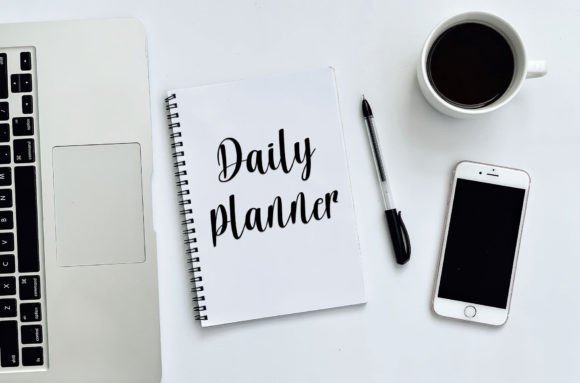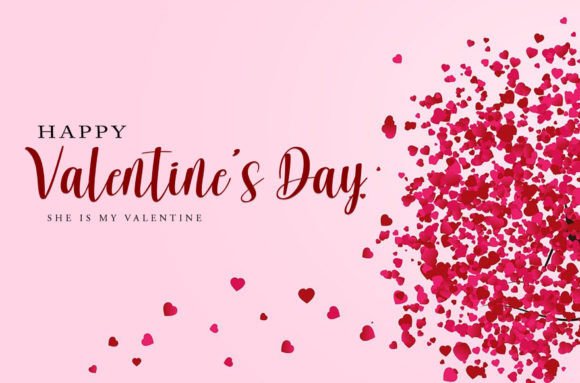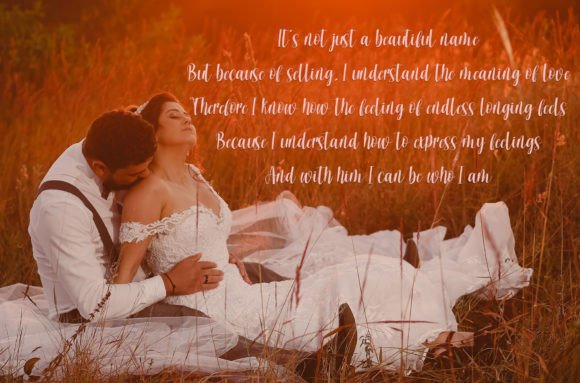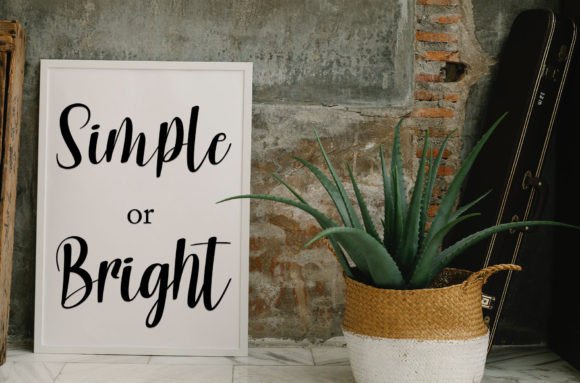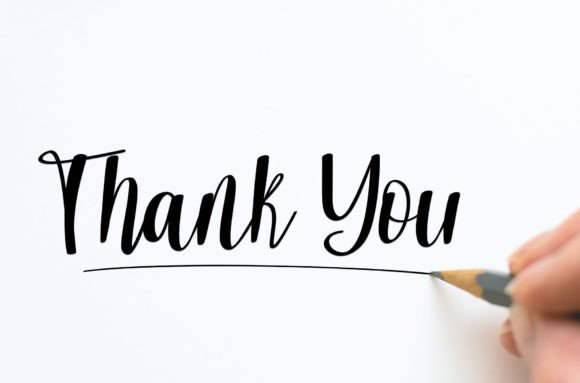
The Sweet Charm of Dominant Font: A Designer’s Delight
I’ll never forget the time I was working on a wedding invitation project, and my client asked for a font that was both elegant and playful. I scoured the internet, trying out font after font, but nothing seemed quite right. That was until I stumbled upon Dominant Font. This sweet and cursive handwritten font has been a game-changer for me, and I’m excited to share its charm with you! ✨
An Honest Review of Dominant Font
- ✨ The elegant, cursive script that adds a touch of romance to any design
- ✅ The font’s versatility – it looks great on a variety of design ideas, from branding to greeting cards
- 🌸 The joyful and whimsical feel it brings to projects, perfect for making them stand out
- 💕 The perfect balance of fancy and casual, making it suitable for a wide range of applications
While Dominant Font is an amazing addition to any design project, there are a few things to keep in mind: 🤔
- ⚠️ Some of the more intricate details may get lost at smaller font sizes
- ⚠️ It may not be the best choice for body text, as it’s more suited for headlines and titles
A Practical Guide to Using Dominant Font
- Experiment with OpenType features, such as glyphs and stylistic alternates, to add more personality to your text
- Take advantage of glyphs and stylistic alternates to create unique and eye-catching text
The Story Behind Dominant Font
Dominant Font was created with the intention of bringing a touch of elegance and playfulness to design projects. Its designer wanted to craft a font that would be both versatile and beautiful, with a unique personality that would shine through in any application.
Q: What type of projects is Dominant Font best suited for?
A: Dominant Font is perfect for a wide range of projects, including branding, logos, wedding designs, greeting cards, fashion, and more.
Q: Is Dominant Font available in different weights or styles?
A: While Dominant Font may not have multiple weights or styles, its versatility and range of OpenType features make it easy to adapt to different design needs.